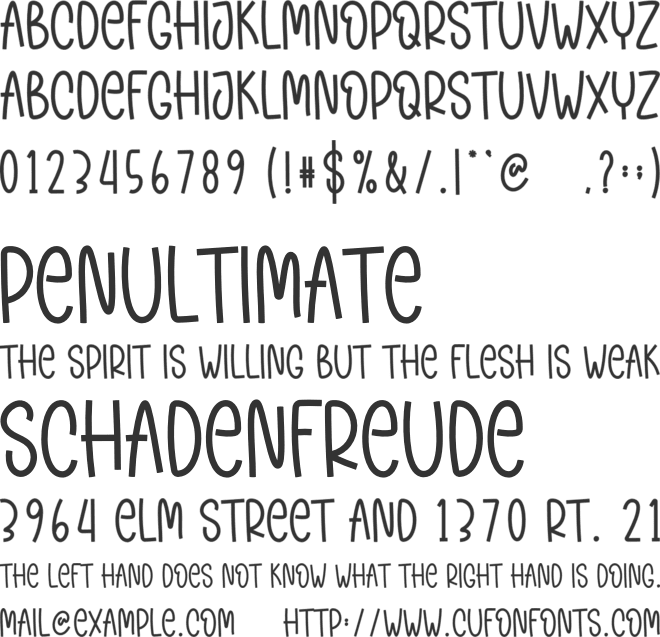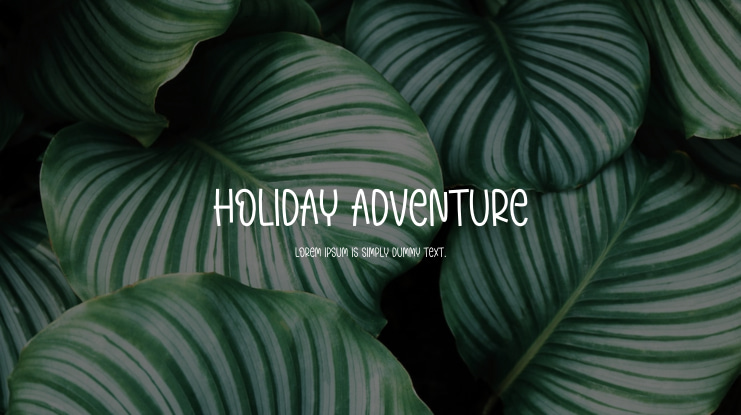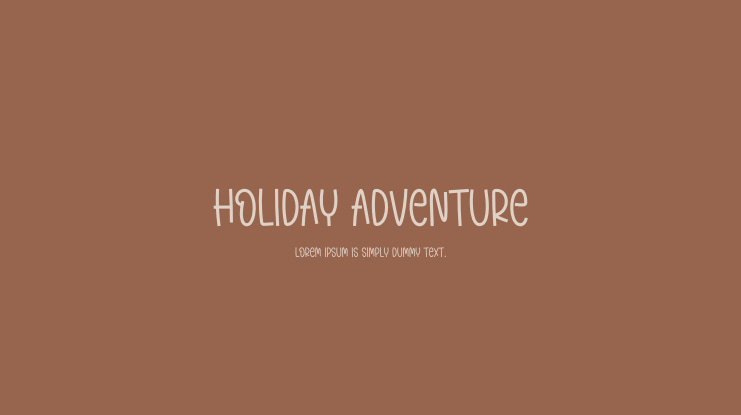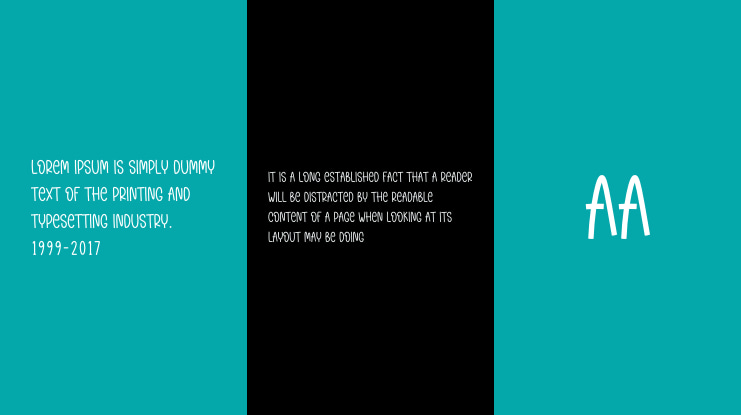
Holiday Adventure Font
Our latest style letters are ideal for a variety of uses: wall displays, wedding invitations, social media post logos, advertisements, product packaging, product designs, labels, photography, watermarks, stationery, and any project requiring refined handwriting.